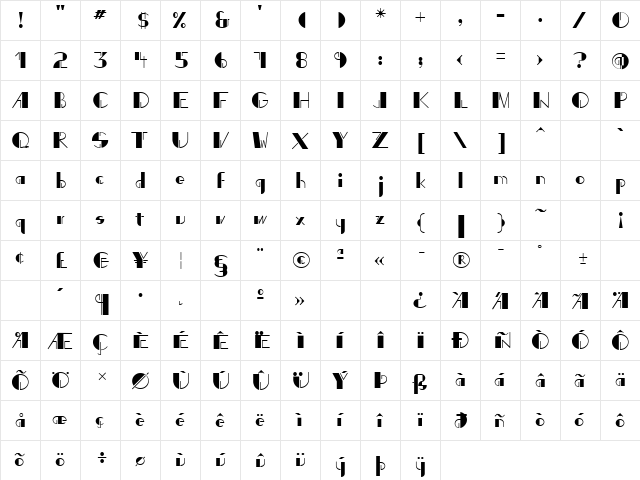
P22 Art Deco Display Regular
| Foundry | P22 type foundry |
| Designer | Carima El-Behairy |
Design Context for P22 Art Deco Display Typeface
P22 Art Deco Display brings ornamental detail and strong personality to headlines and identities, where visual impact matters more than quiet functionality.